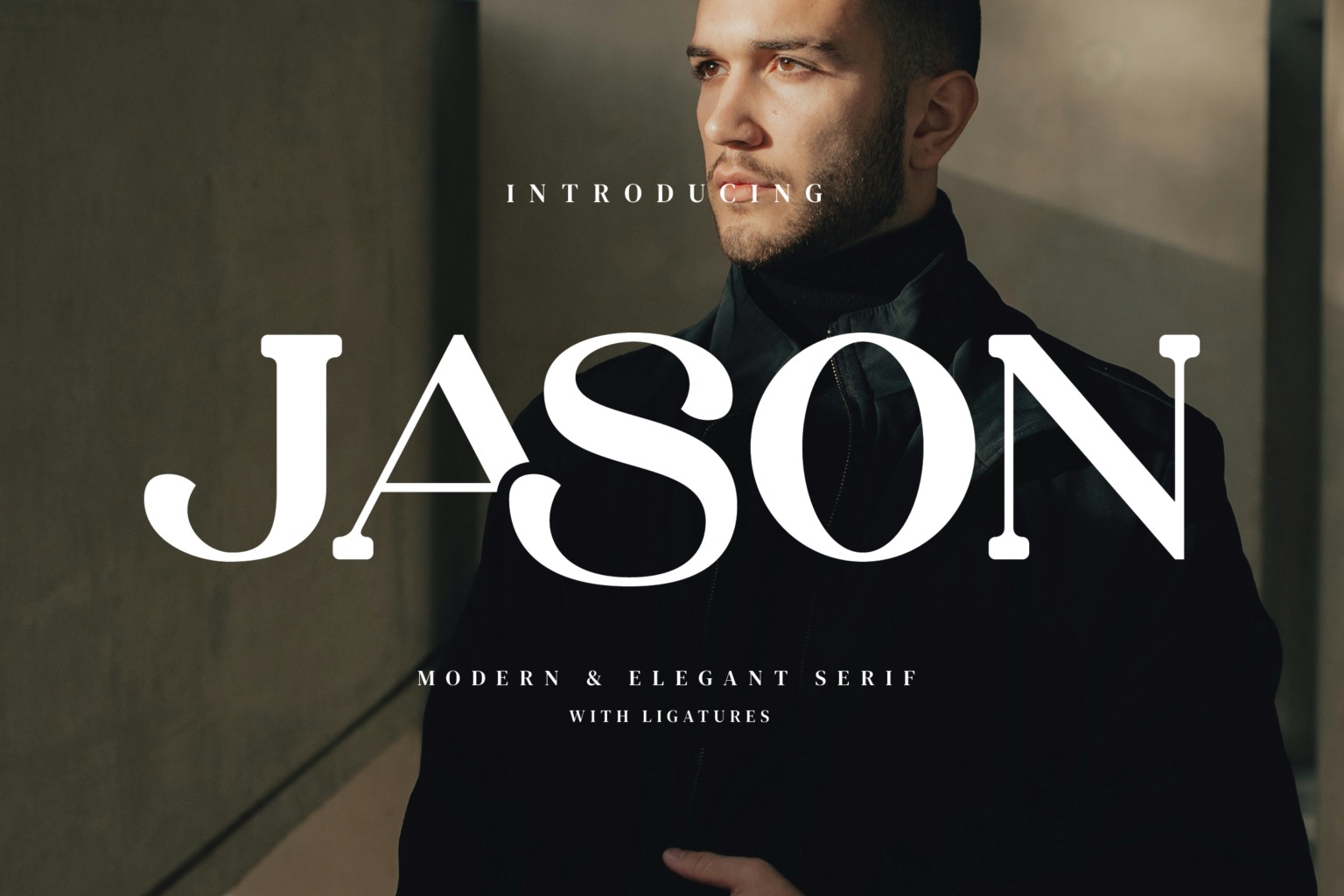
Jason – Modern Serif Font
Jason – Modern Serif Font is a flexible and reliable font created to fit multiple design needs, from branding and packaging to social media and editorial layouts. Jason Stylish Ligature Typeface, inspired by the famous minimalist logo perfect for the purposes of designing templates, brochures, videos, advertising branding, logos and more.